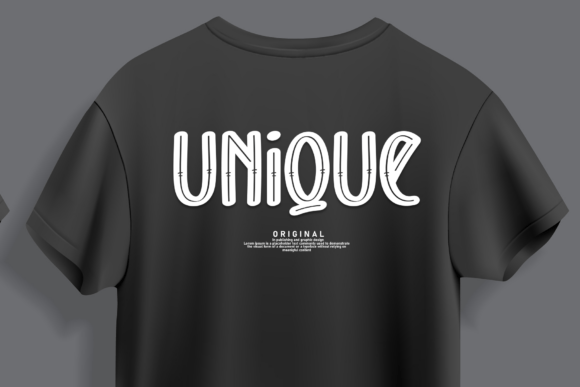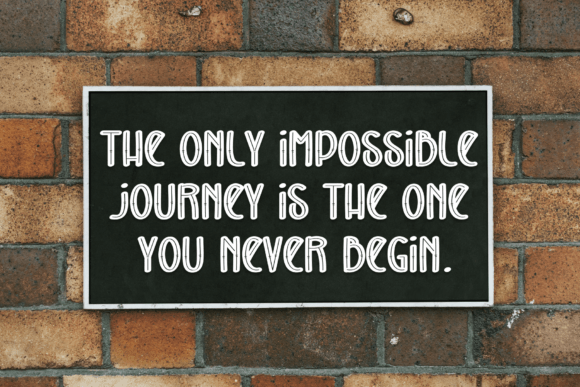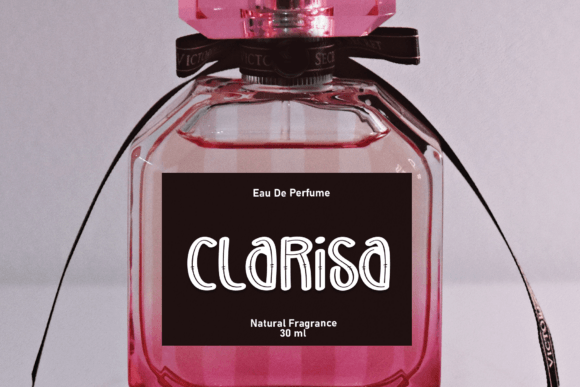
Introduction to Morning Summit Font
Have you ever sat at your desk, surrounded by scattered papers, and suddenly, a creative spark ignites? The Morning Summit Font is that spark that can elevate your next project from ordinary to extraordinary. This charming handwritten display font is the perfect addition to any designer’s toolkit, offering a high-quality design resource that’s sure to delight.
As a designer, you’re always on the lookout for that special something to make your projects stand out. The Morning Summit Font is that something, imbuing your work with a touch of sweetness and friendliness. Whether you’re designing a wedding invitation or a playful card, this font is the perfect choice for lending a light-hearted undertone to your creative project.
Key Features of Morning Summit Font
- Unique, modern design with a clean and elegant aesthetic
Honest Review: Morning Summit Font
I recently came across the Morning Summit Font, and I must say it’s a great addition to any designer’s arsenal. As a design resource, it offers a high quality and versatile font that can be used for a variety of creative projects.
One of the things that works well with this font is its clean and modern design. The font is available for free download, making it a great option for designers on a budget. The transparent background also makes it easy to use in a variety of design contexts.
The Morning Summit Font is perfect for:
- Creating modern and sleek branding materials
- Designing websites and web applications
- Developing marketing materials and social media graphics
While the Morning Summit Font is a great design resource, there are some limitations to consider. The font may not be suitable for complex or technical projects, as it can be a bit difficult to read at smaller font sizes.
Overall, I’m impressed with the Morning Summit Font and would definitely recommend it to other designers.
How to Use Morning Summit Font
Morning Summit Font is a high-quality design resource that can elevate your creative project with its unique and stylish aesthetic. This free download is perfect for designers and non-designers alike, offering a versatile and modern look that can be used across various platforms.
Tips for Getting the Most Out of Morning Summit Font
For a seamless and professional-looking design, be sure to pair the Morning Summit Font with a transparent background. This will allow your text to stand out and create a clean, modern look. Experiment with different font sizes and styles to find the perfect balance for your creative project.
Morning Summit Font is perfect for a variety of design projects, including:
- Blogs and websites
- Marketing materials and brochures